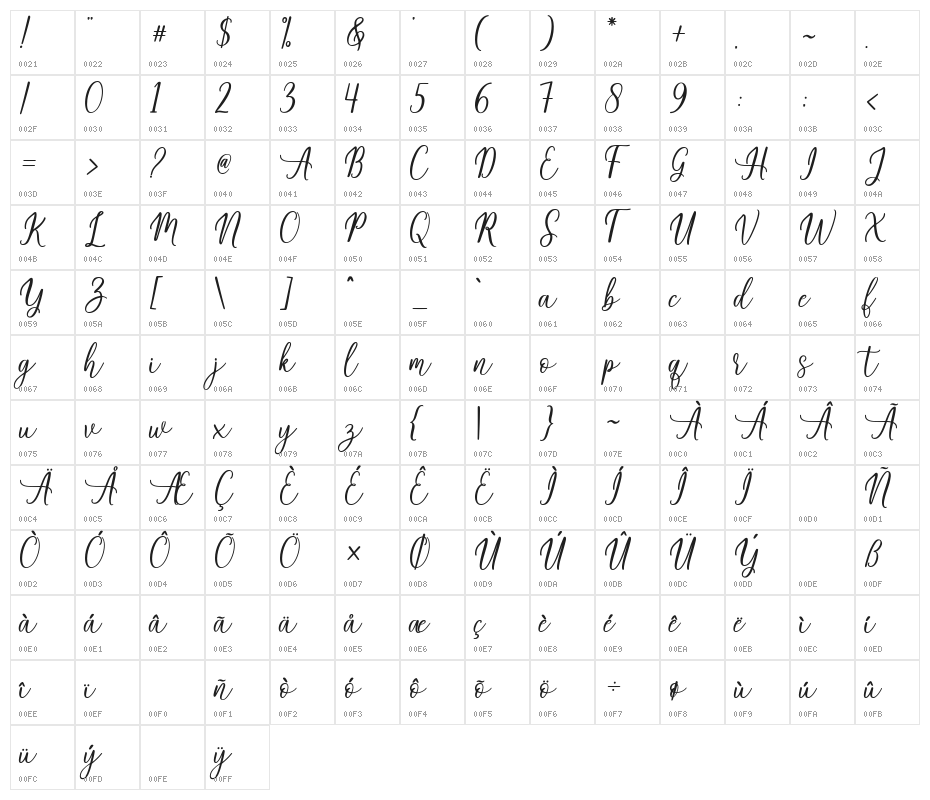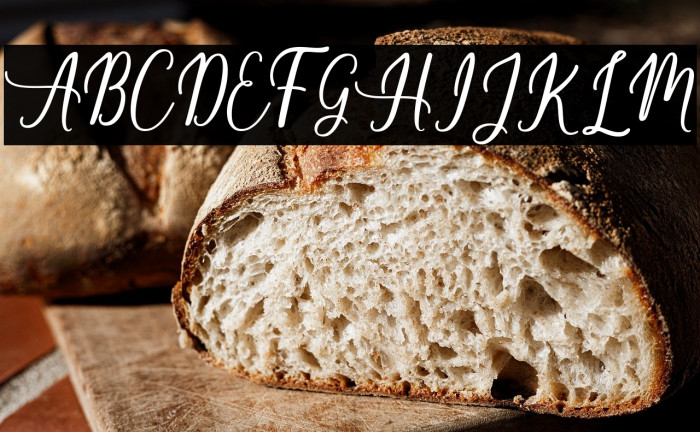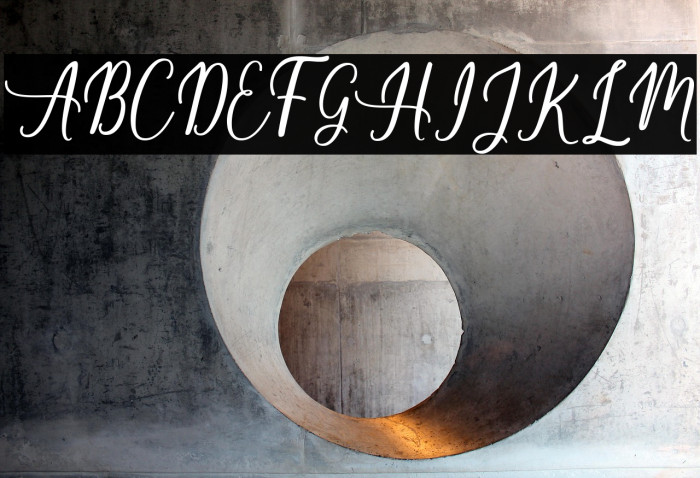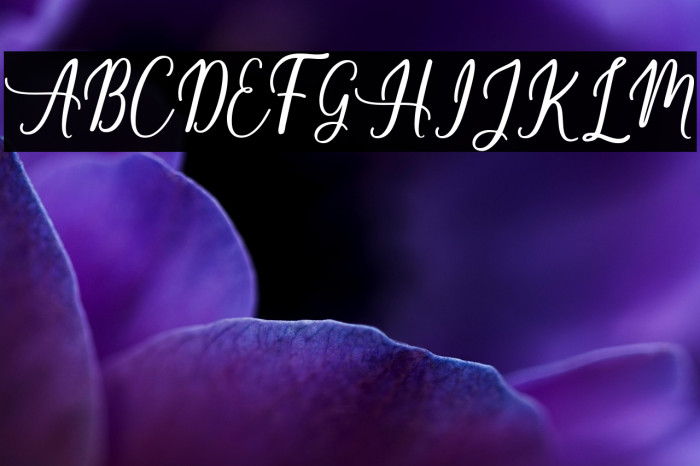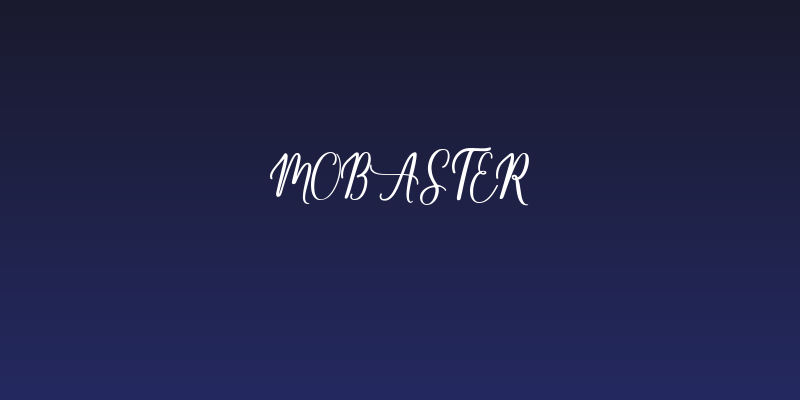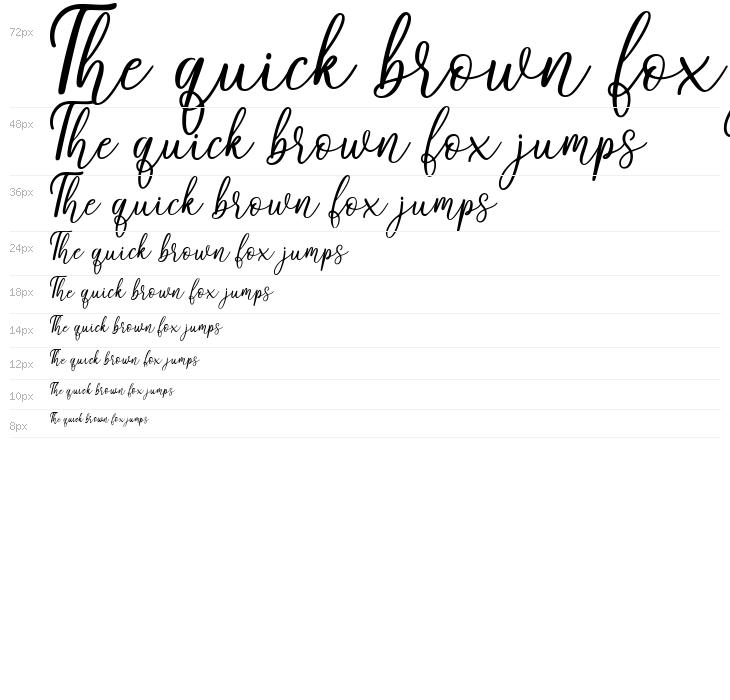
mobaster Font
mobaster Description
This elegant script font features flowing, cursive letterforms with a graceful and sophisticated appearance. The uppercase letters are characterized by their tall, sweeping ascenders and descenders, creating a sense of movement and fluidity. The lowercase letters maintain a consistent style, with rounded loops and smooth connections between strokes. The numerals are clear and legible, complementing the overall aesthetic. Special characters are designed with the same attention to detail, ensuring they blend seamlessly with the rest of the typeface. This font exudes a sense of elegance and charm, making it suitable for a variety of creative applications.
| Categories | Script |
| Overall Style | Elegant |
| Use Case | Logos, Invitations, Decorative text |
| Proposed Projects | Ideal for wedding invitations, greeting cards, branding, and elegant packaging designs. |